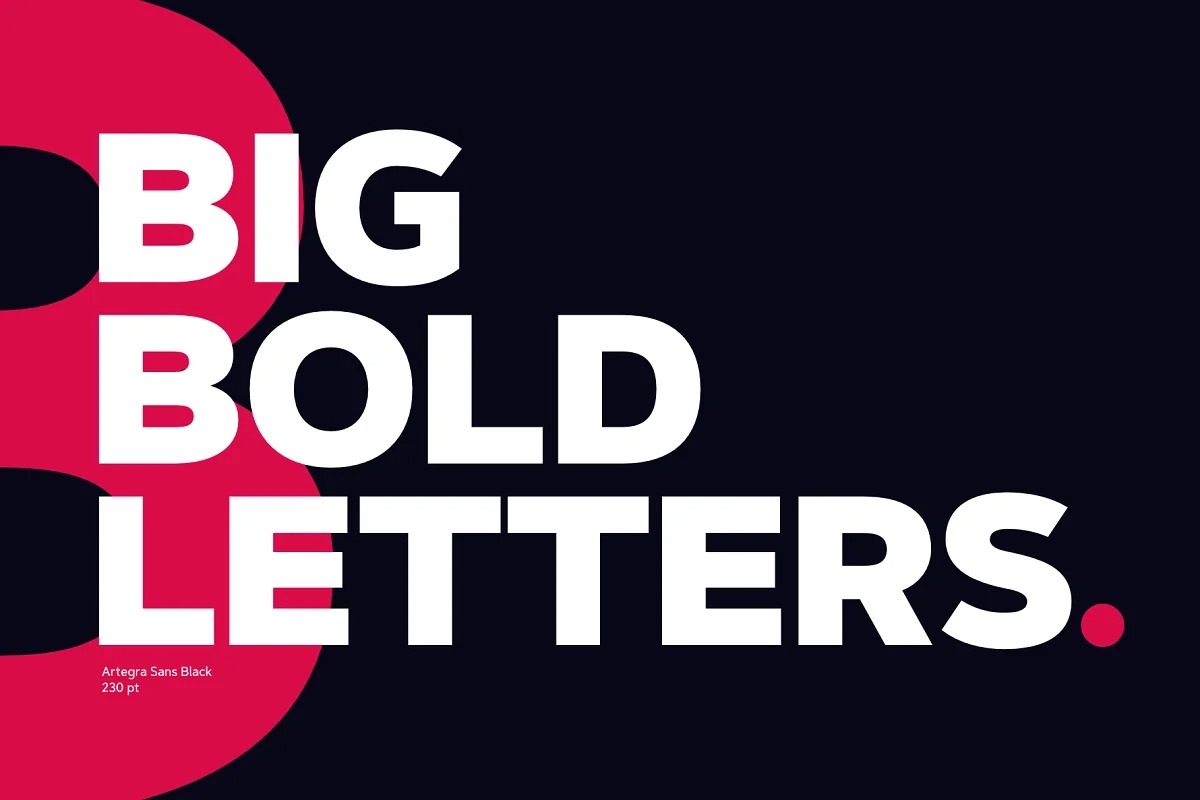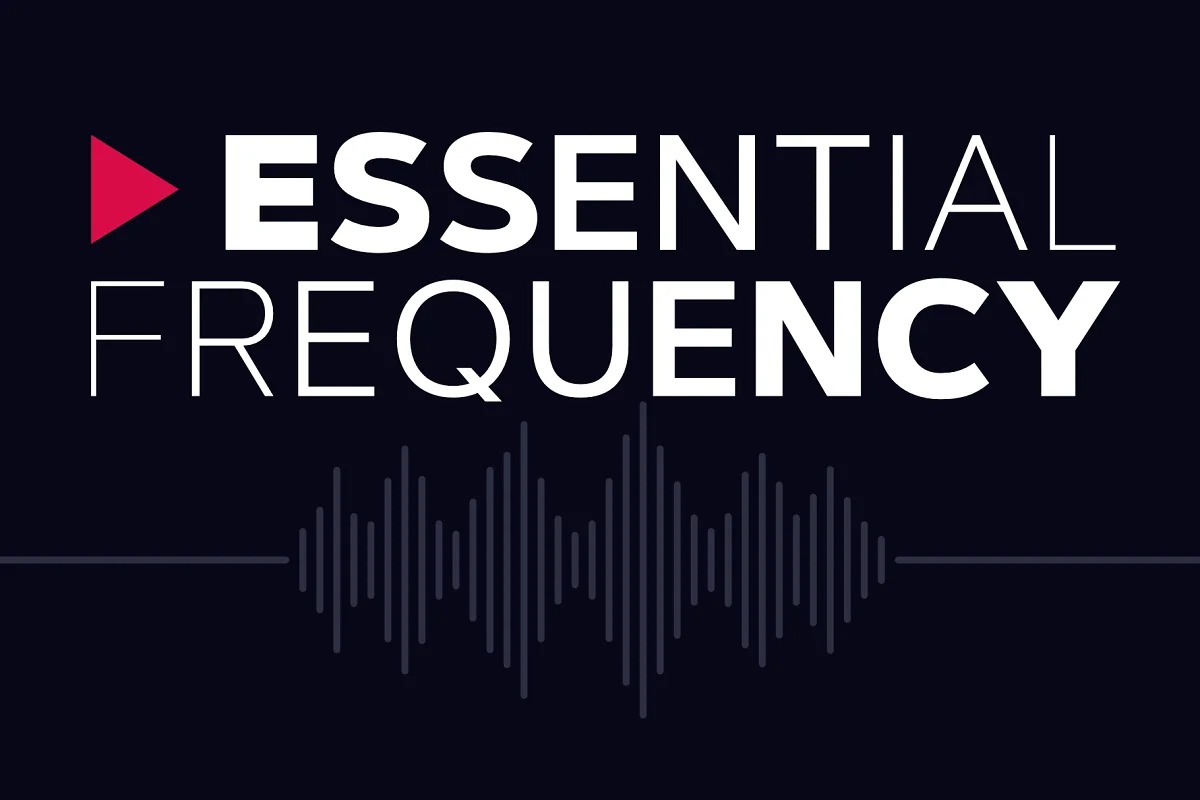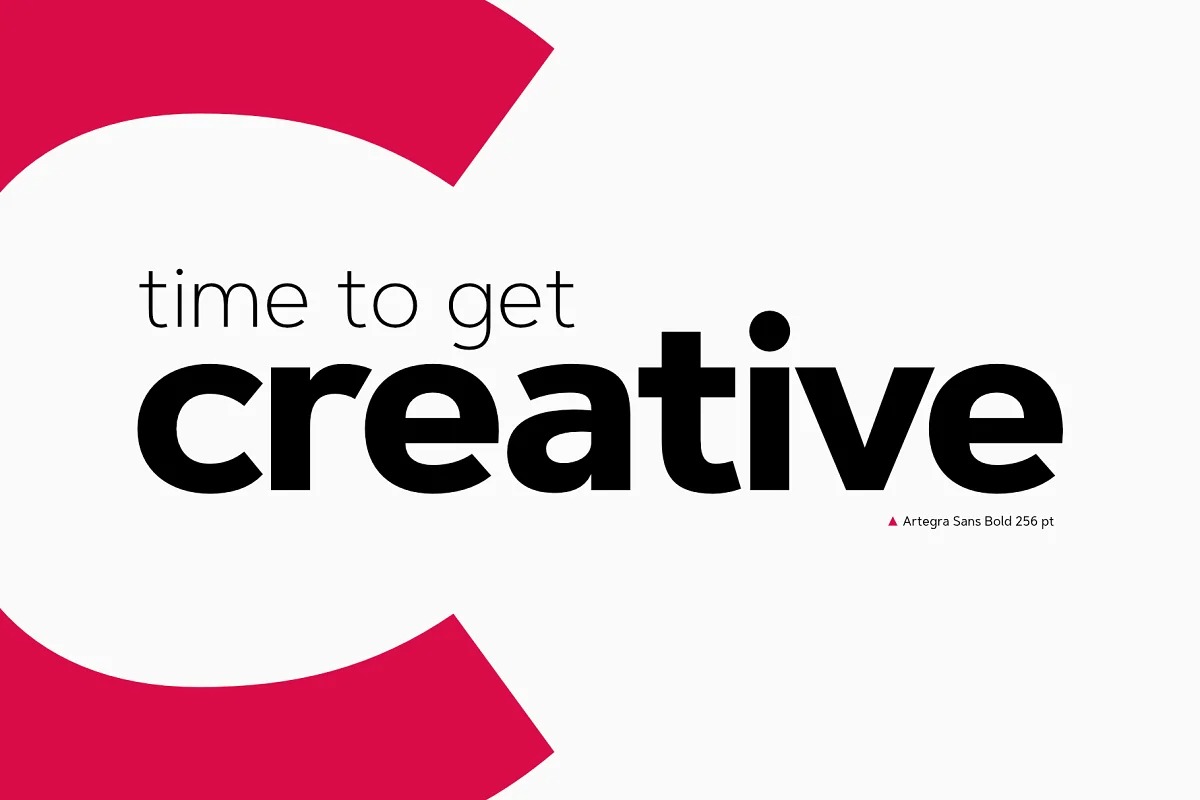
Artegra Sans Font Family
Artegra Sans Font
It’s reliable and modern sans serif typeface manufactured by Artegra. The concept behind the creation of Artegra Sans was simple: design one of the most comprehensive families in the world while maintaining the highest technical and aesthetic qualities throughout each included font. The resulting typeface is an astounding 162-font testament to the universally unifying nature of the written word.
The Artegra Sans family is composed of nine weights along with their matching true italics in normal, condensed and extended widths. It also contains over 1500 glyphs per font, supporting a ton of languages from Latin to Cyrillic scripts and lots of OpenType features like small caps, stylistic alternates, ordinals, superscripts, subscripts, fractions, tabular lining, oldstyle figures and more.